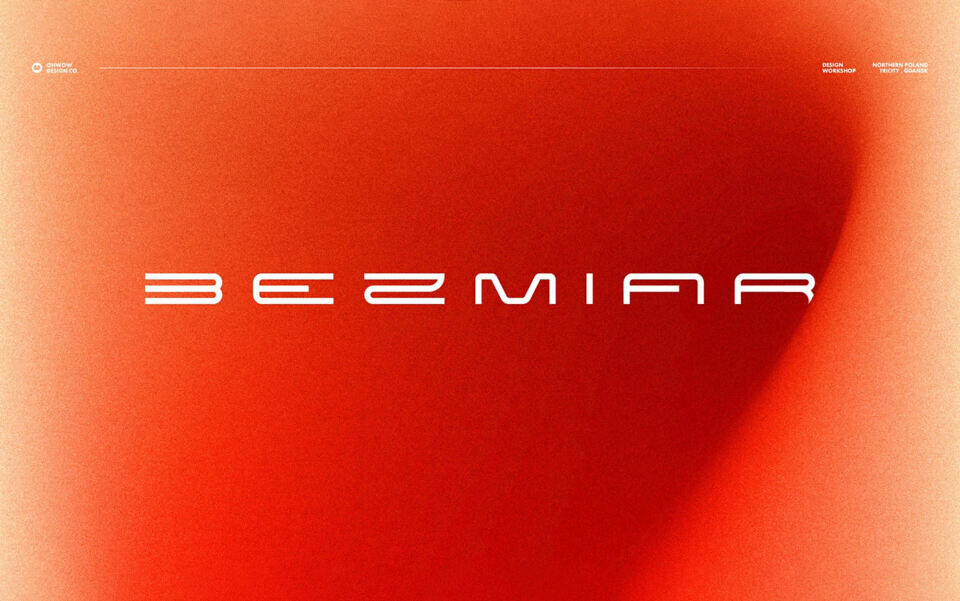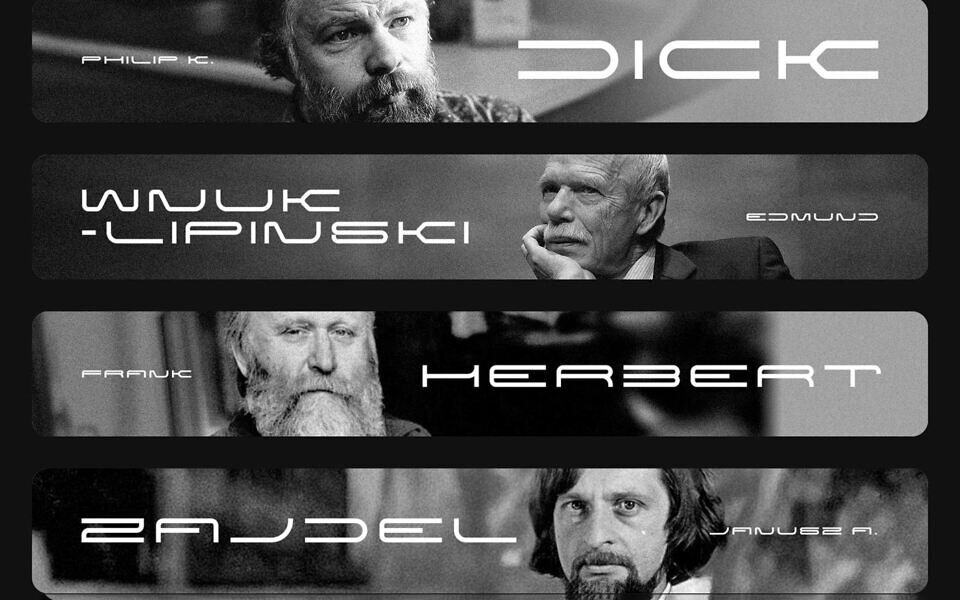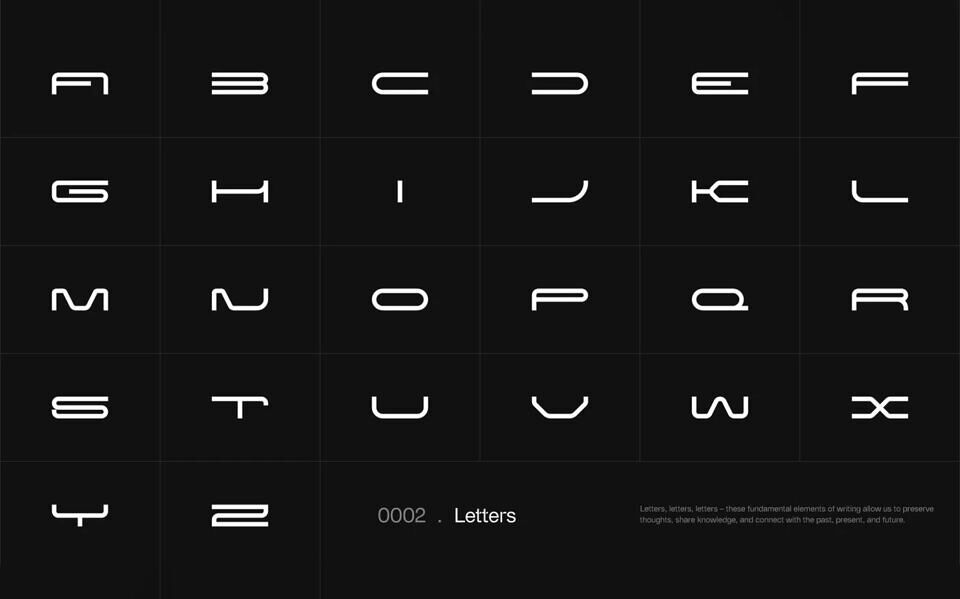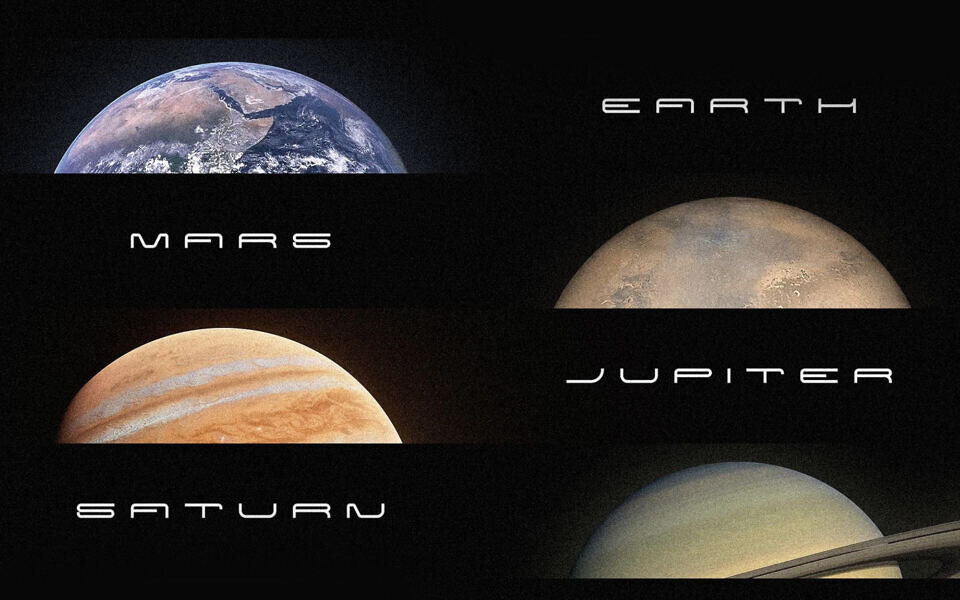
Bezmiar Font
Bezmiar is a modern futuristic sans‑serif display typeface by OHWOW Design Co. It features ultra‑modern geometric shapes, sharp curves, and a clean monoline structure that evokes a sci‑fi, space‑age vibe.
Designed by: OHWOW Design Co.